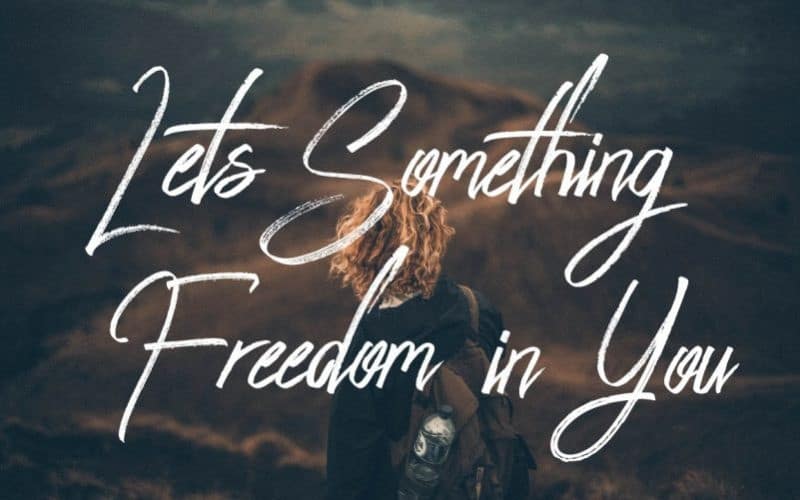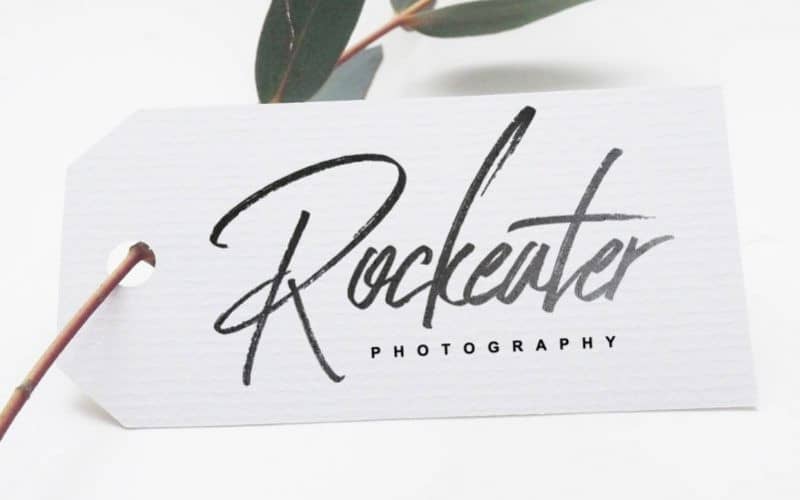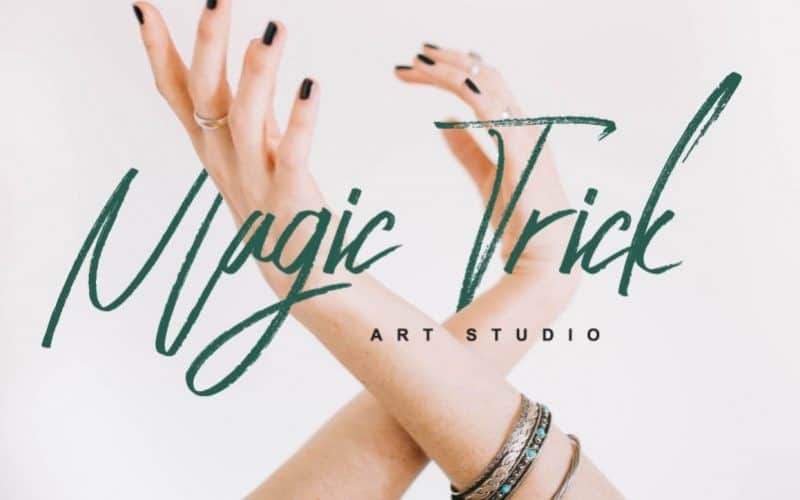
Peace Maker Brush Font
Peace Maker Font is a Handwritten Brush Font, with a natural & stylish flow. Everything from personal branding & wedding invitations to advertising could benefit from this collection of signature fonts. It’s designed by feydesign. It’s a stunning dry brush stroke font, suitable for headlines and signature styled designs. This font is a gorgeous way to give your projects a high impact yet casual appeal.